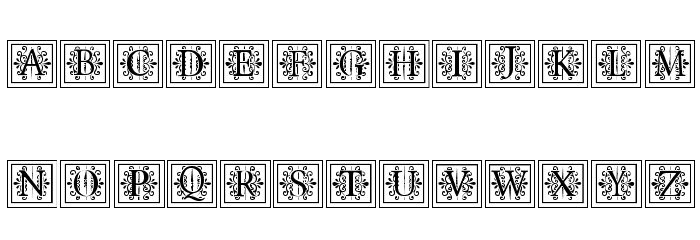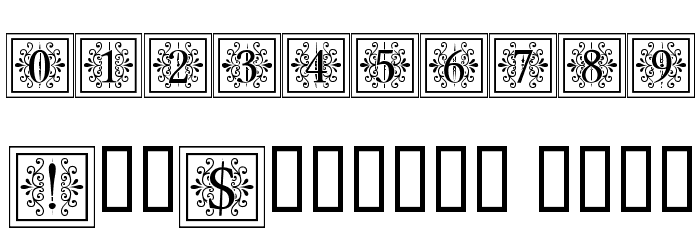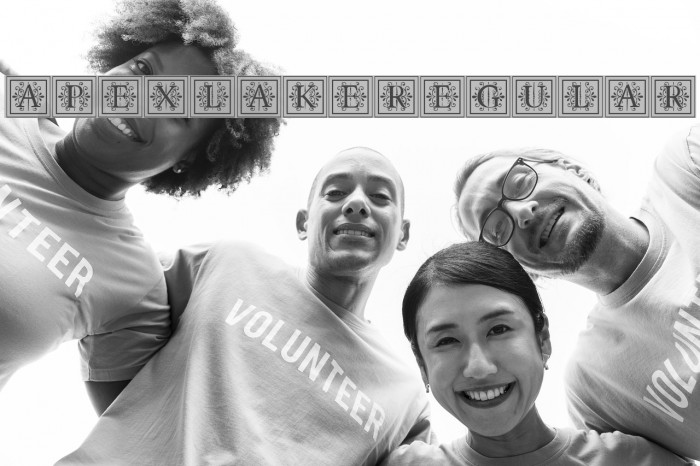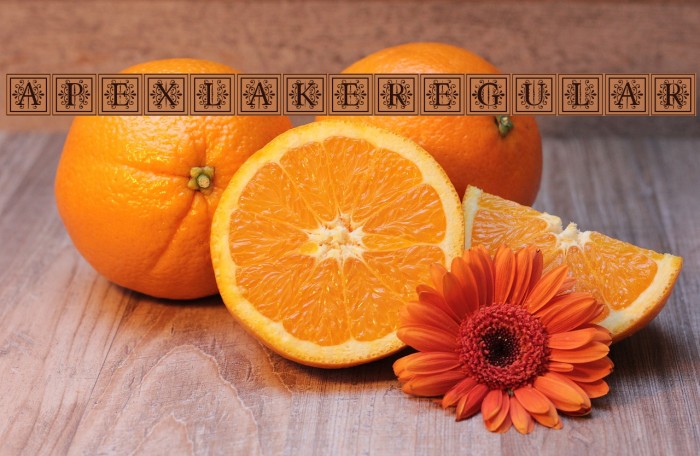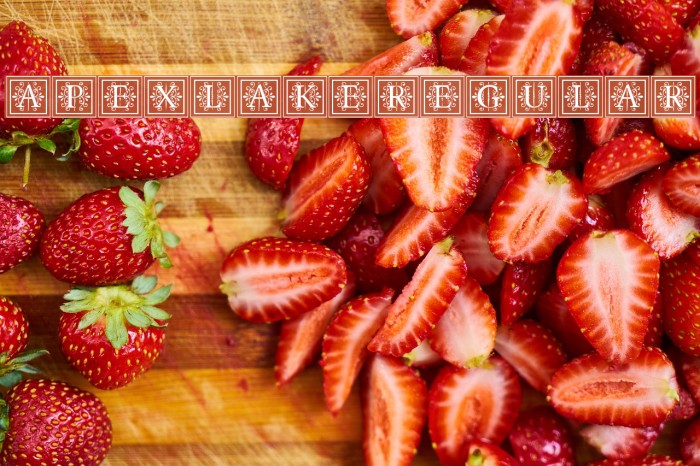
ApexLake-Regular Font
This font features an ornate and decorative style, with each character enclosed in a square frame. The letters and numbers are embellished with intricate floral and vine-like patterns, giving them a vintage and elegant appearance. The design is highly detailed, making it suitable for projects that require a touch of sophistication and artistry. The characters are evenly spaced within their frames, providing a balanced and harmonious look. This font is ideal for creating eye-catching headlines, invitations, or any design that seeks to convey a sense of luxury and refinement.
An ornate, decorative font with floral embellishments and framed characters.
- Proposed Projects: Ideal for wedding invitations, luxury branding, vintage-themed posters, and decorative signage.
- Contrast: High
- Overall Style: Vintage
- Use Case: Headlines, Logos, Invitations